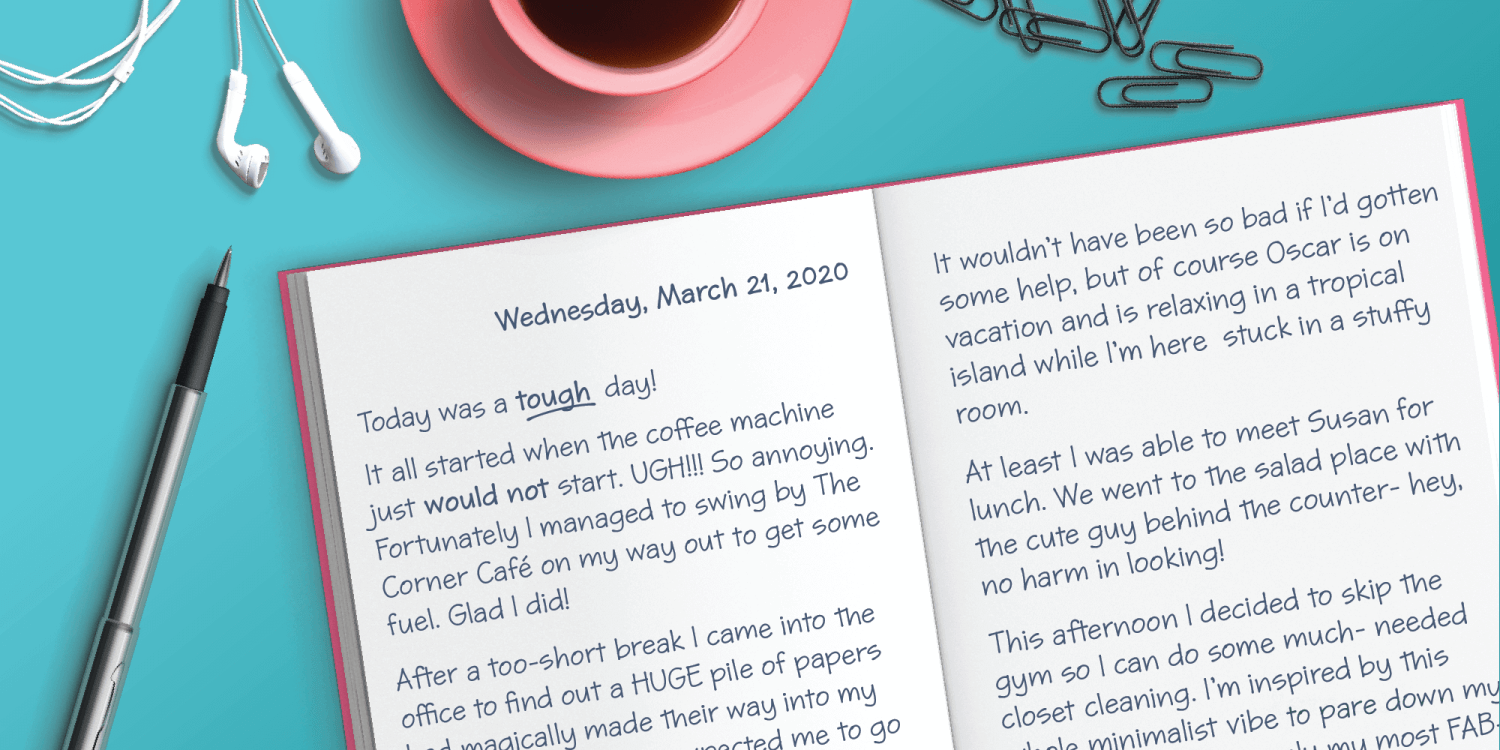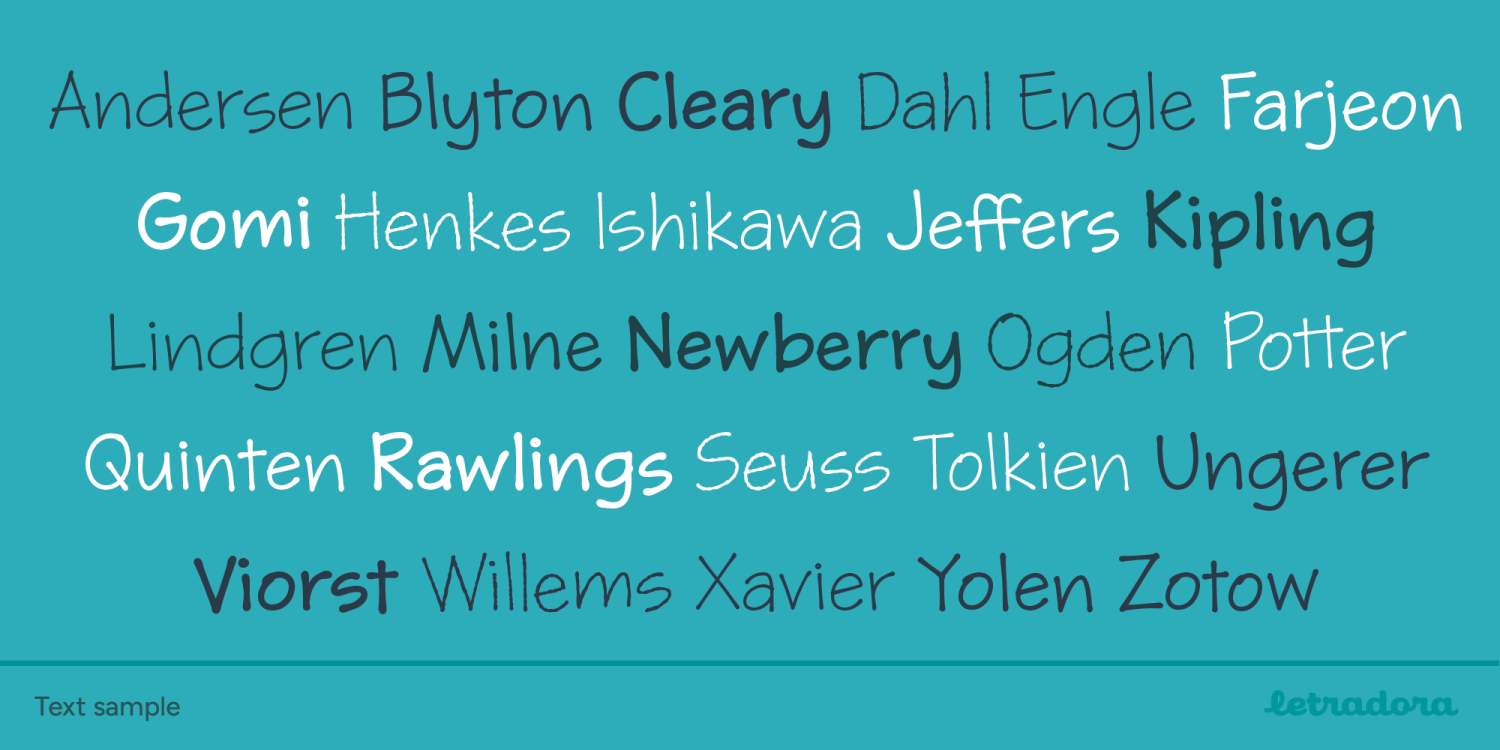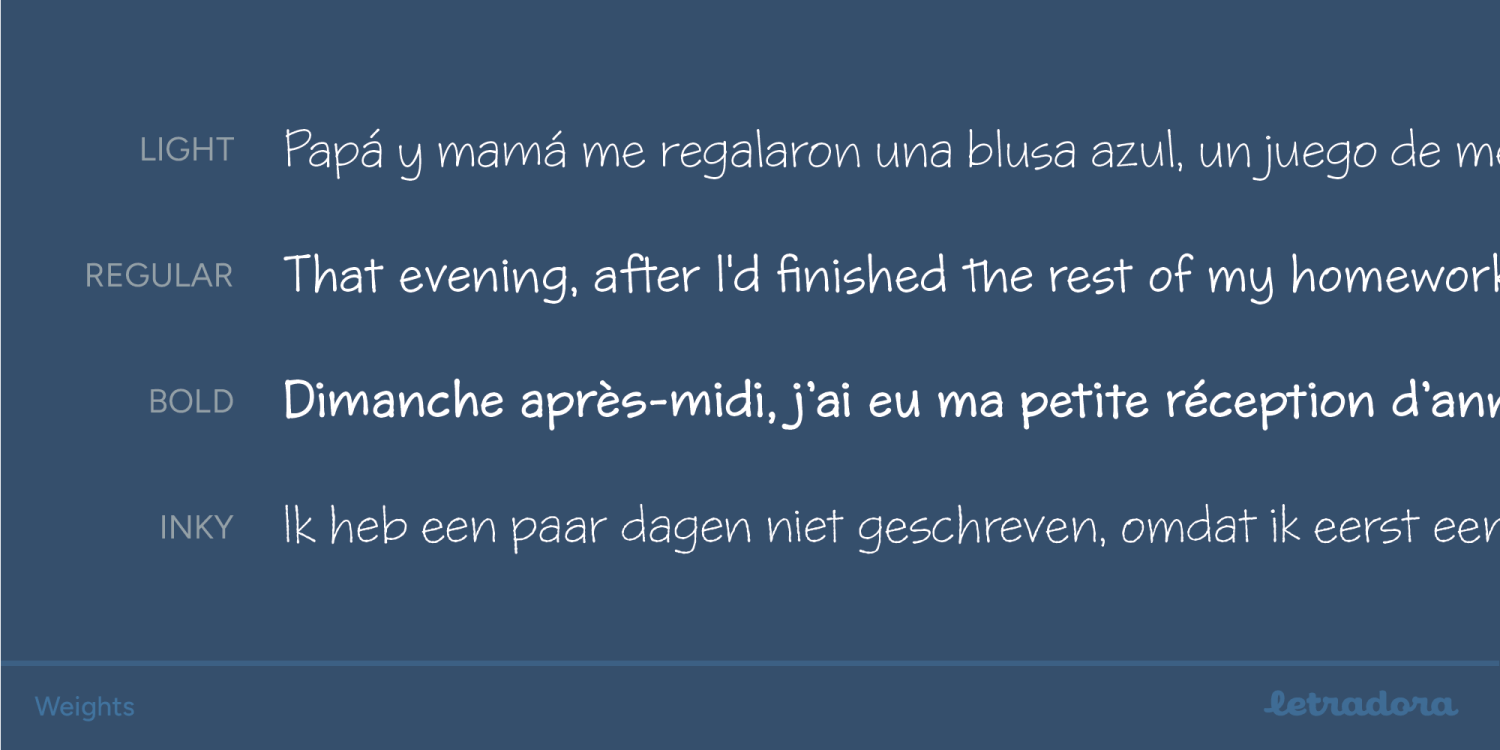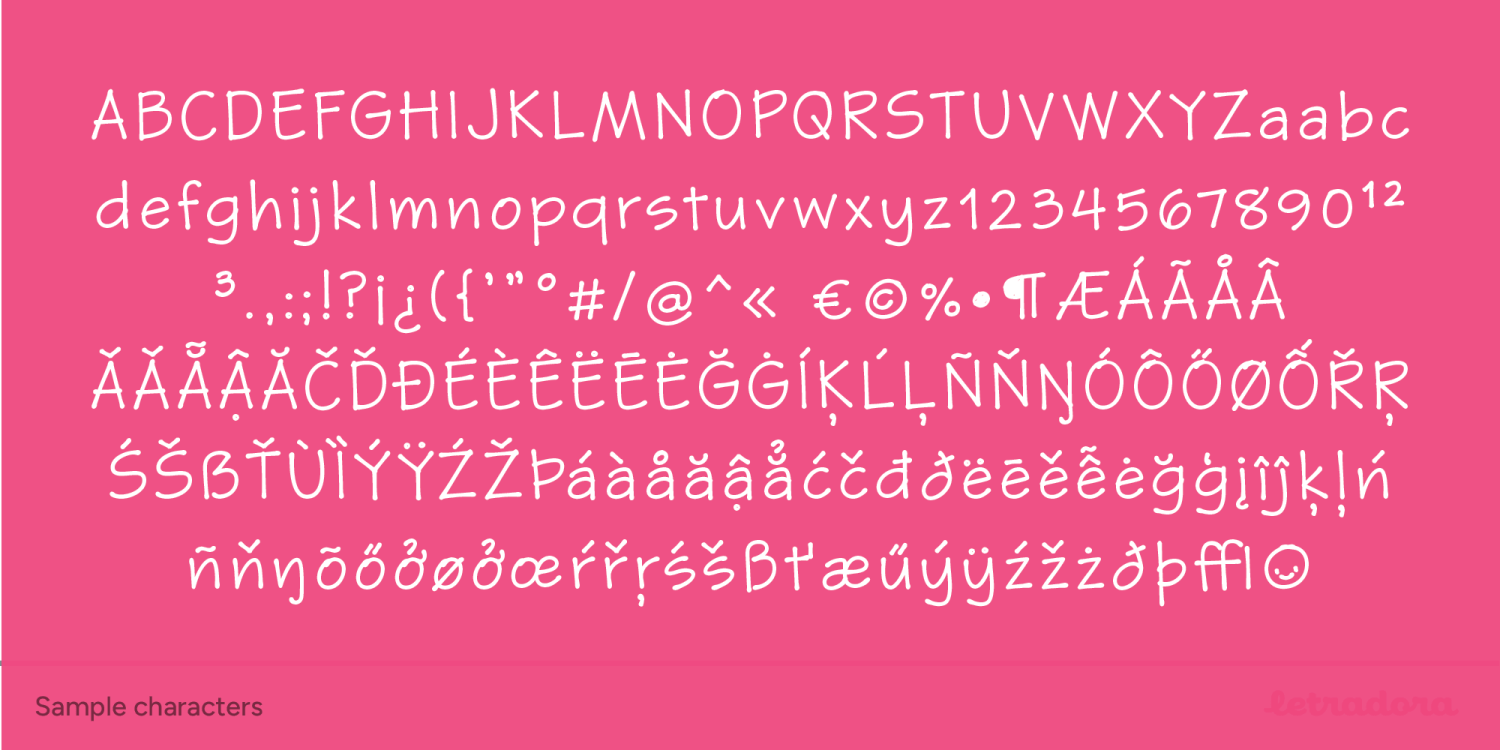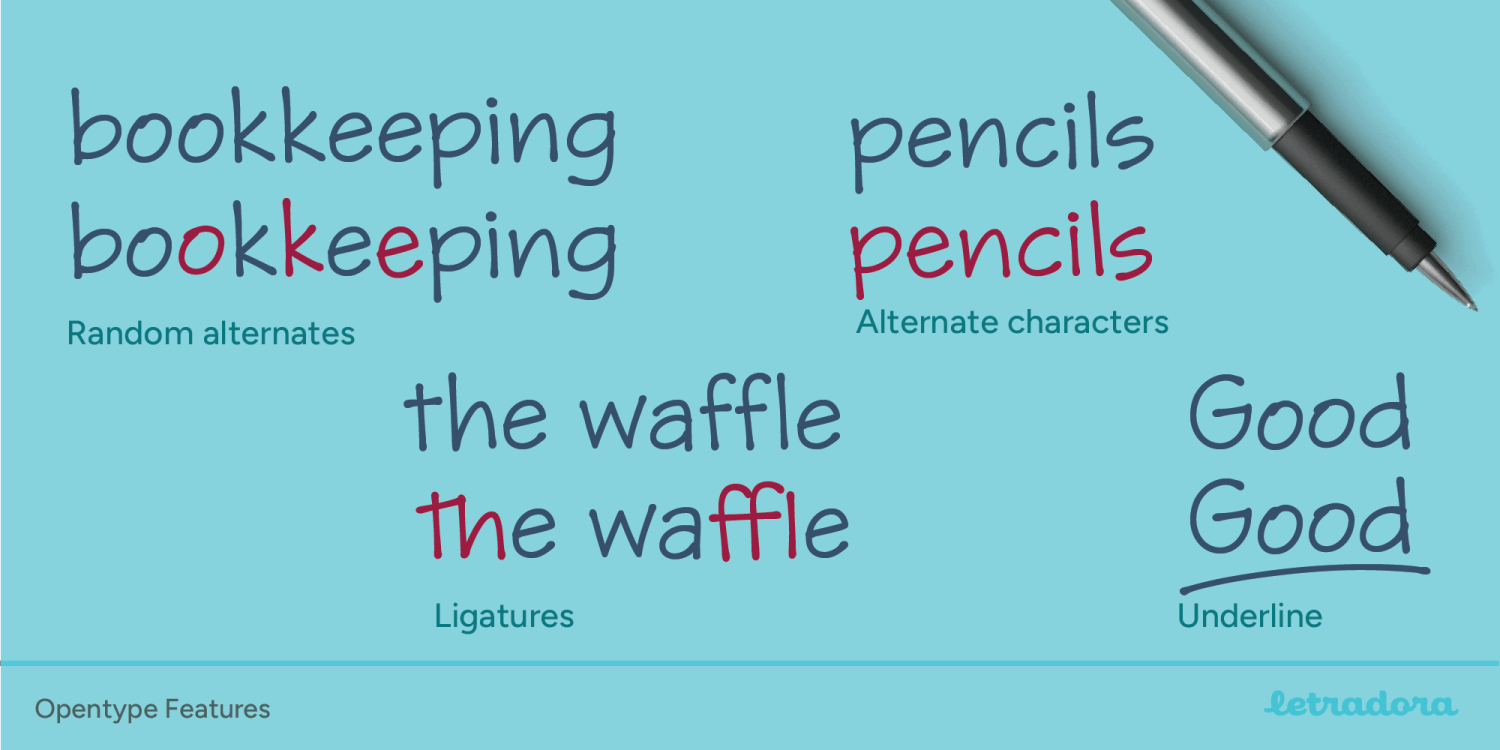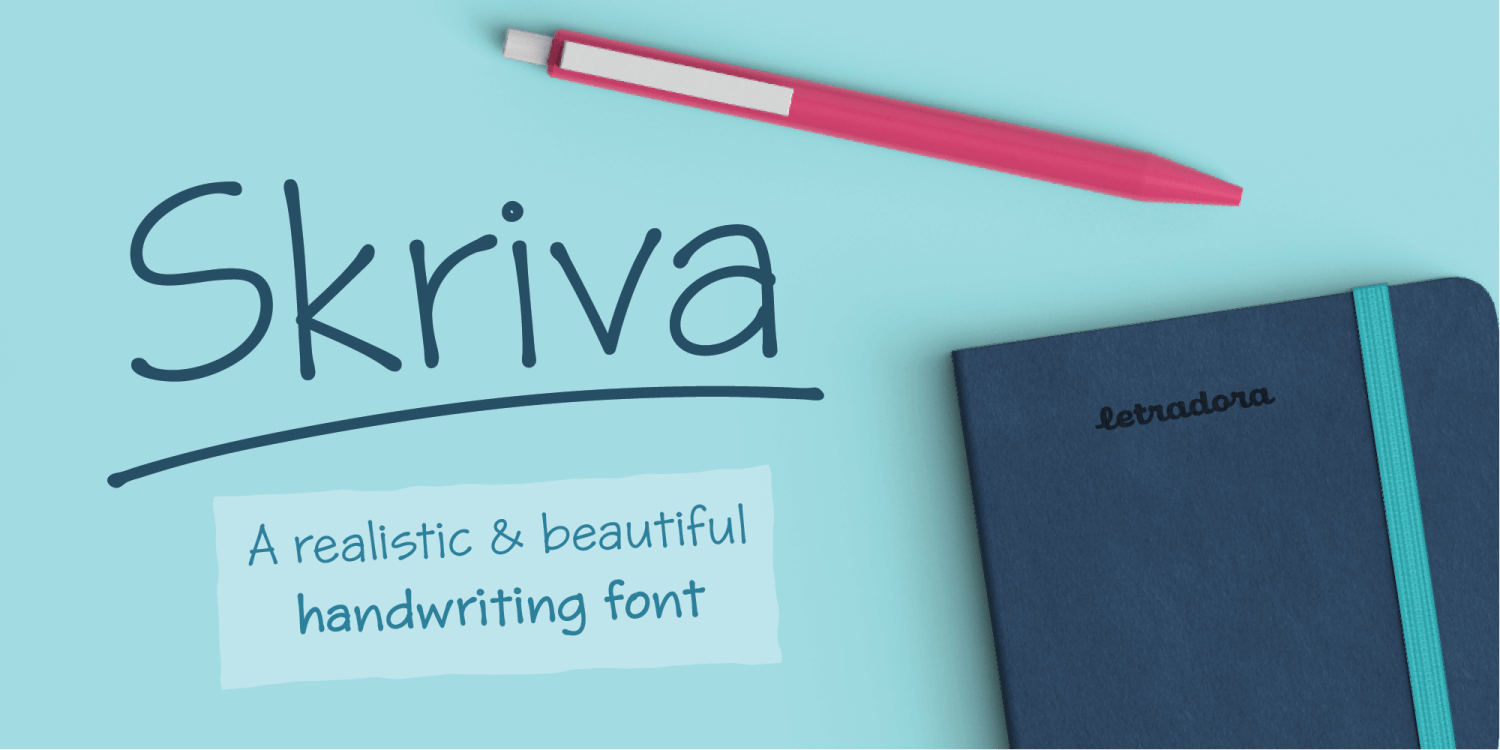
Skriva is the handwriting we'd all like to have: neat and legible, still natural looking. It as a super complete character set with support for over 200 latin languages. It includes advanced OpenType features, such as random alternate characters,…